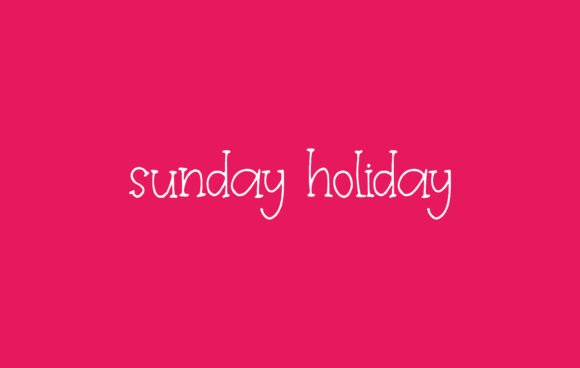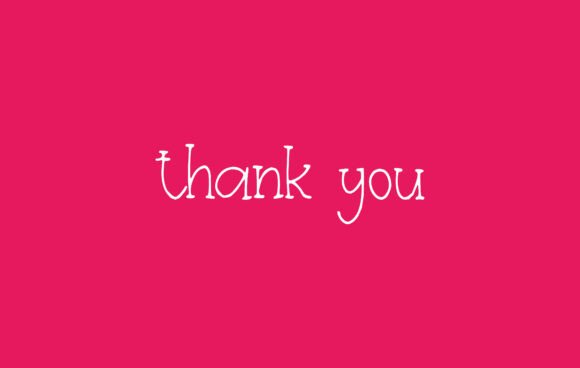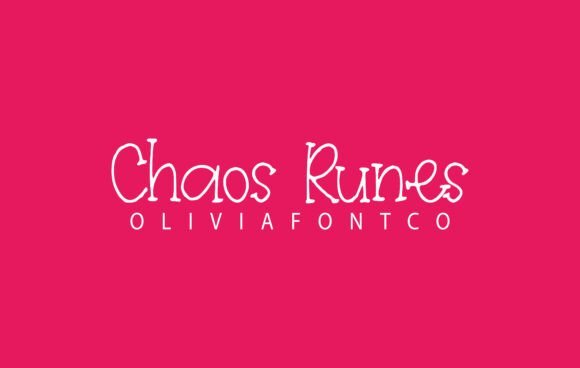
Introduction to Chaos Runes Font
Chaos Runes font is an authentic handwritten font with a romantic touch.
Key Features of Chaos Runes Font
Why Choose Chaos Runes Font?
Chaos Runes Font offers exceptional quality and versatility, making it a valuable addition to your design toolkit. Whether you’re creating for personal projects or commercial use, Chaos Runes Font delivers professional results.